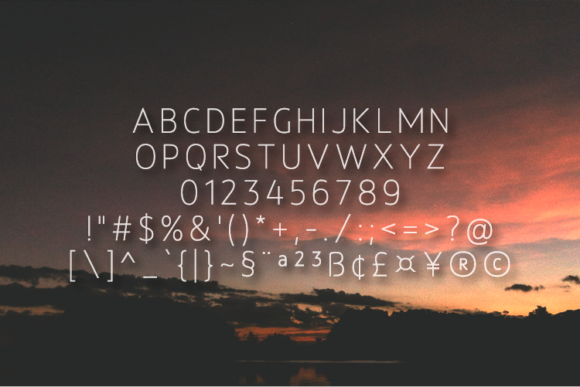
Introduction to Lilithe Font
Lilithe is a simple and casual sans serif font with an undeniably clean feel.
With its neat and beautiful arrangement of letters, this typeface will look outstanding in both formal and non-formal designs .
Key Features of Lilithe Font